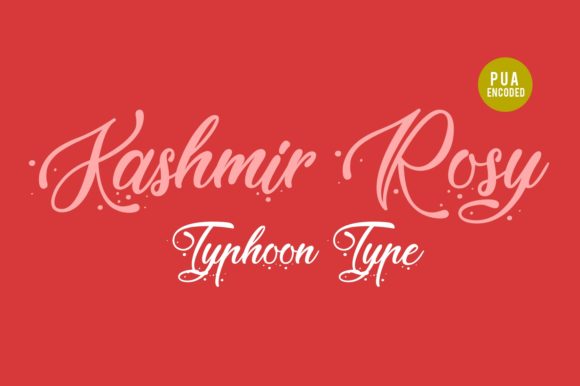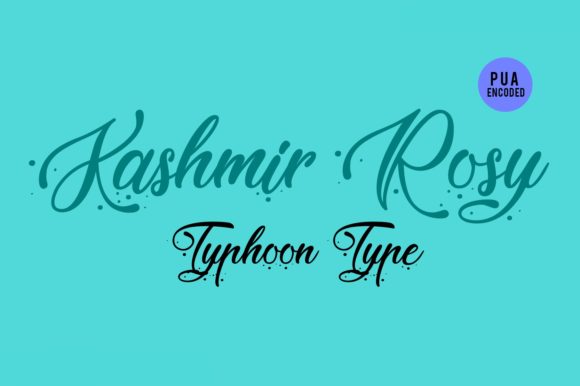
Kashmir Rosy Font
About Kashmir Rosy Font
Kashmir Rosy is a delicate script with exquisite letters. It will add a fancy feel to any arts and craft project!